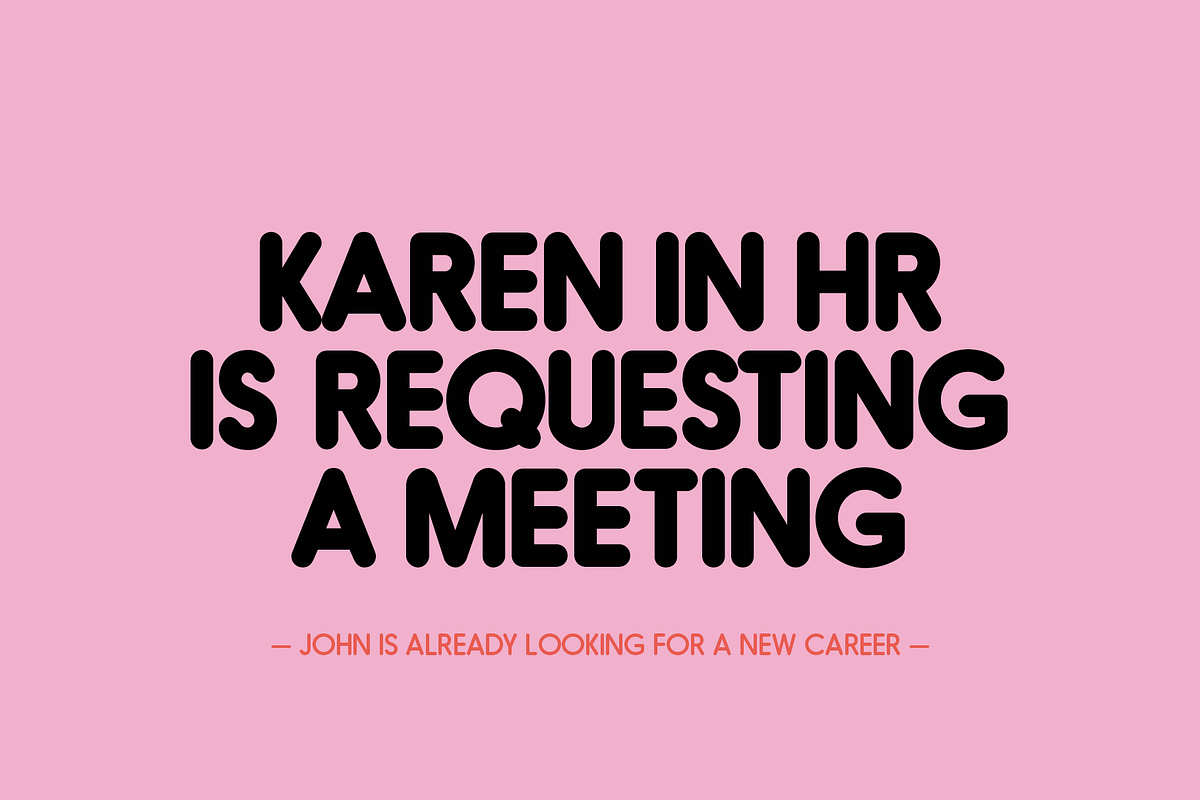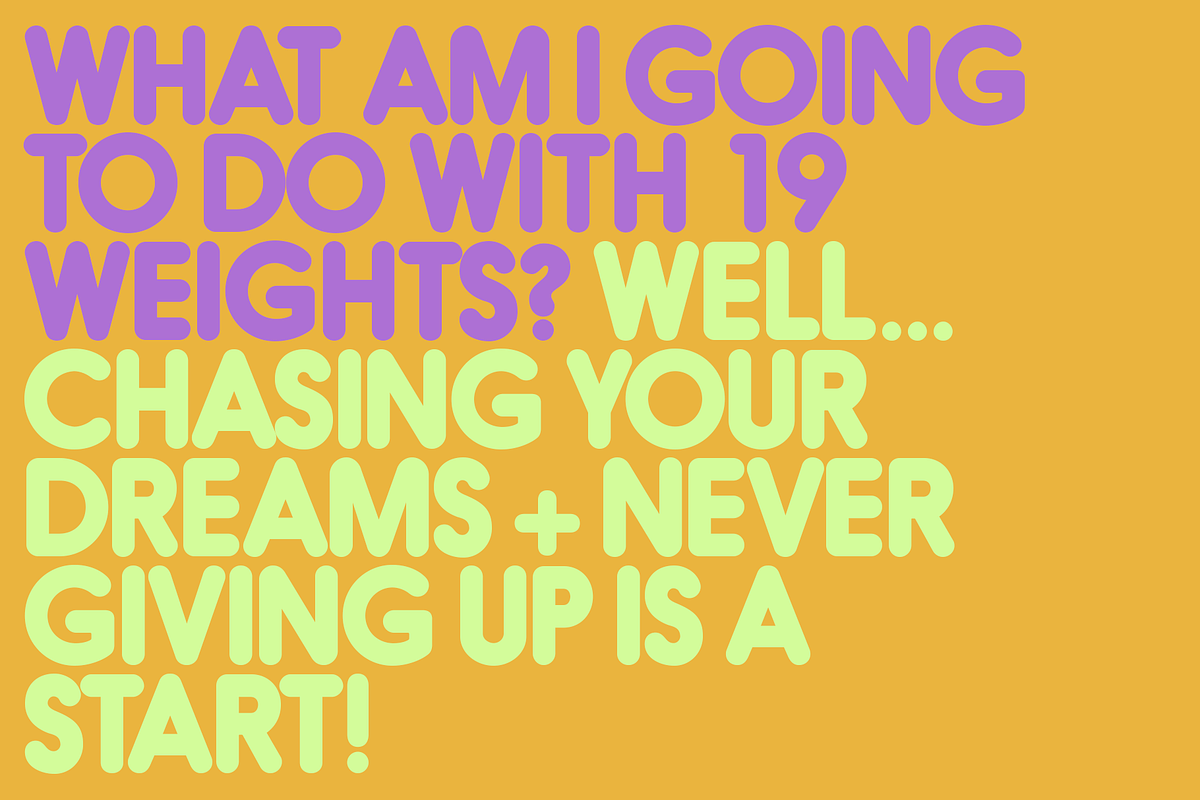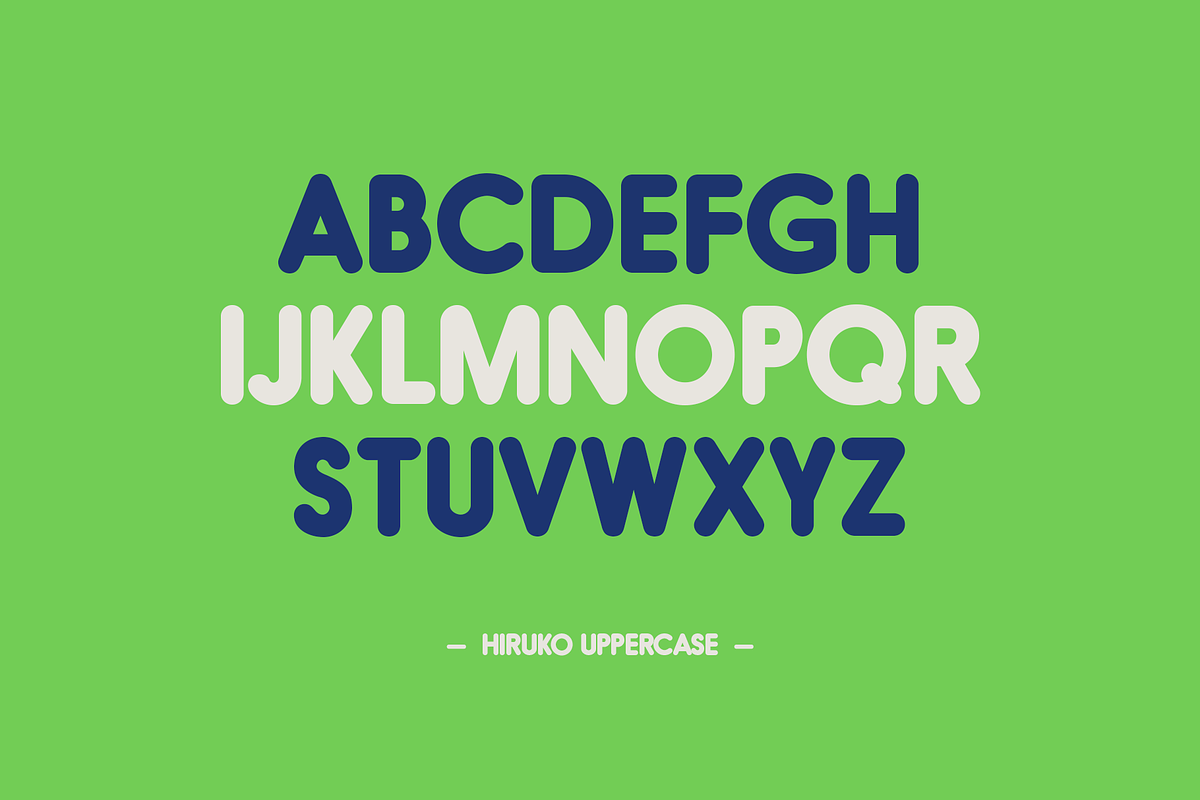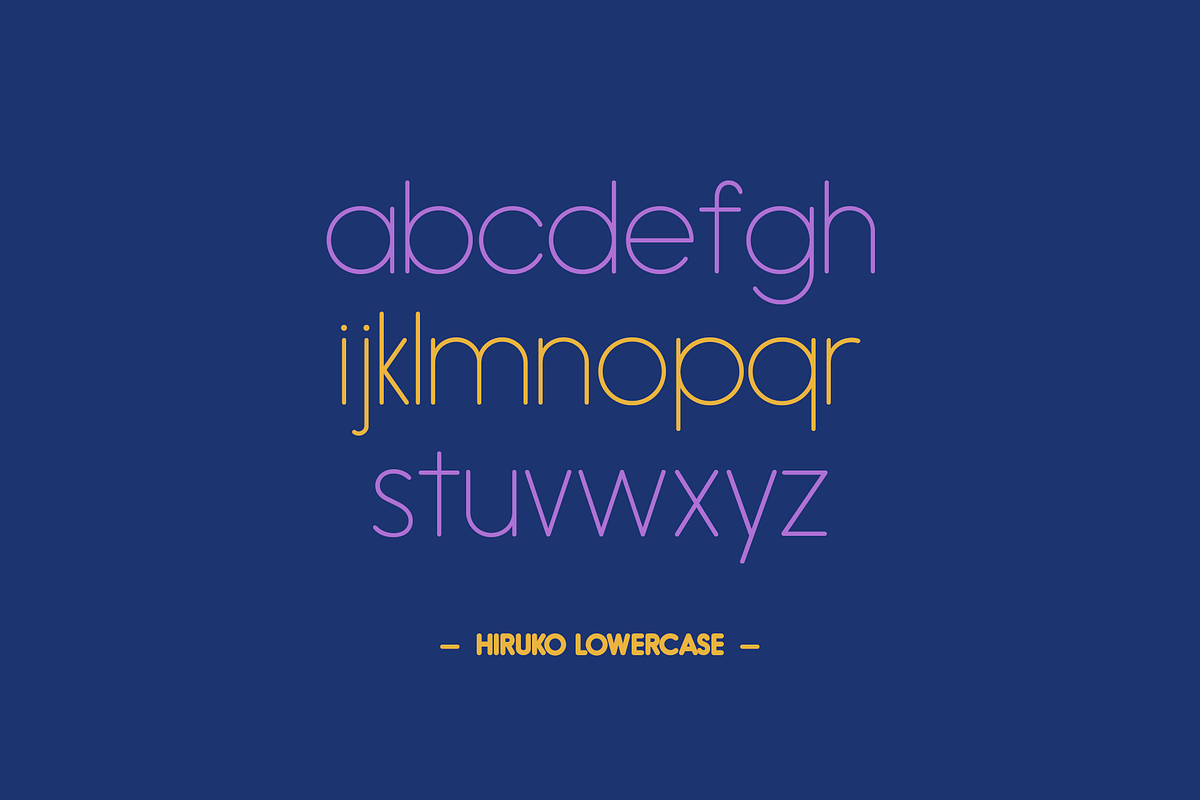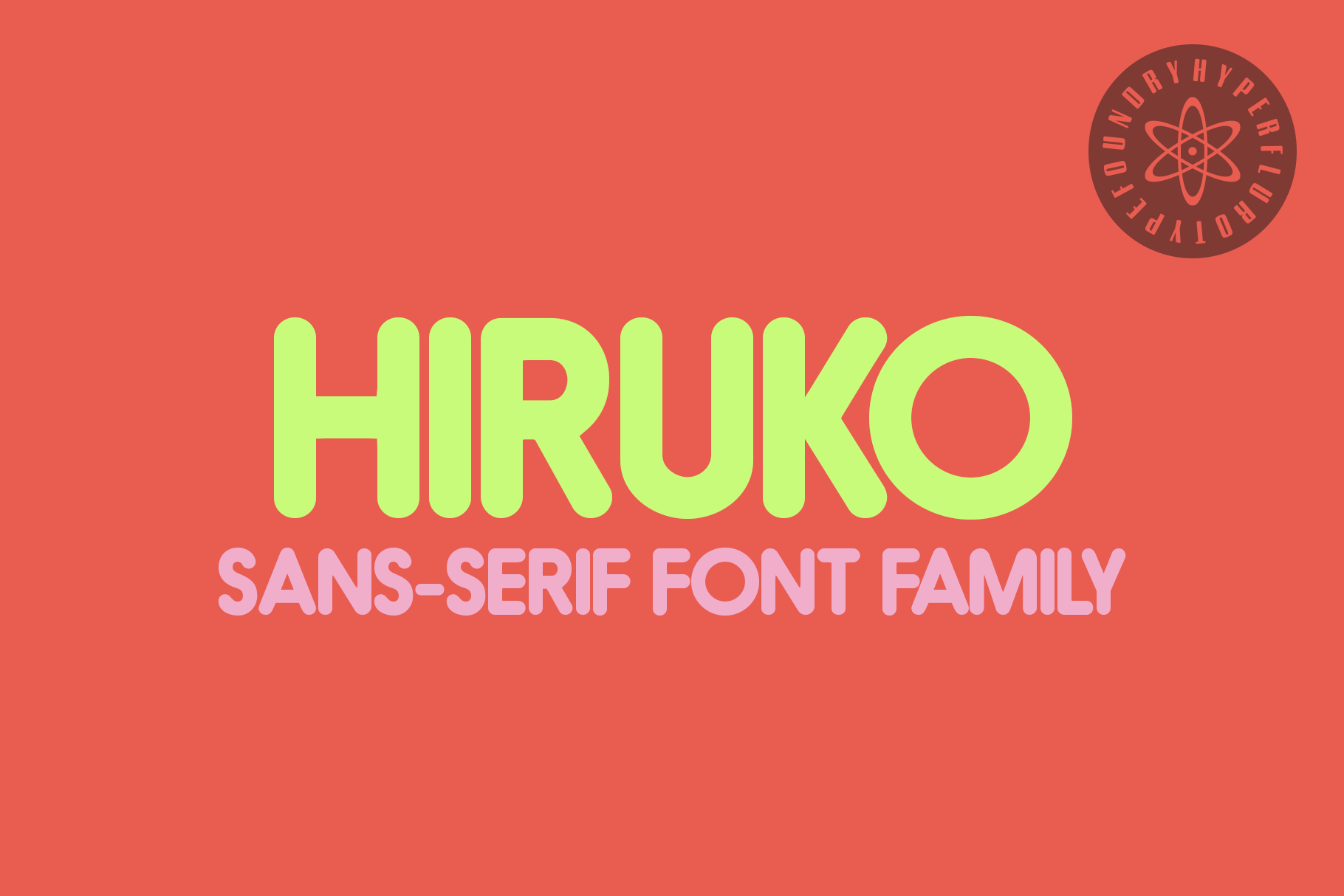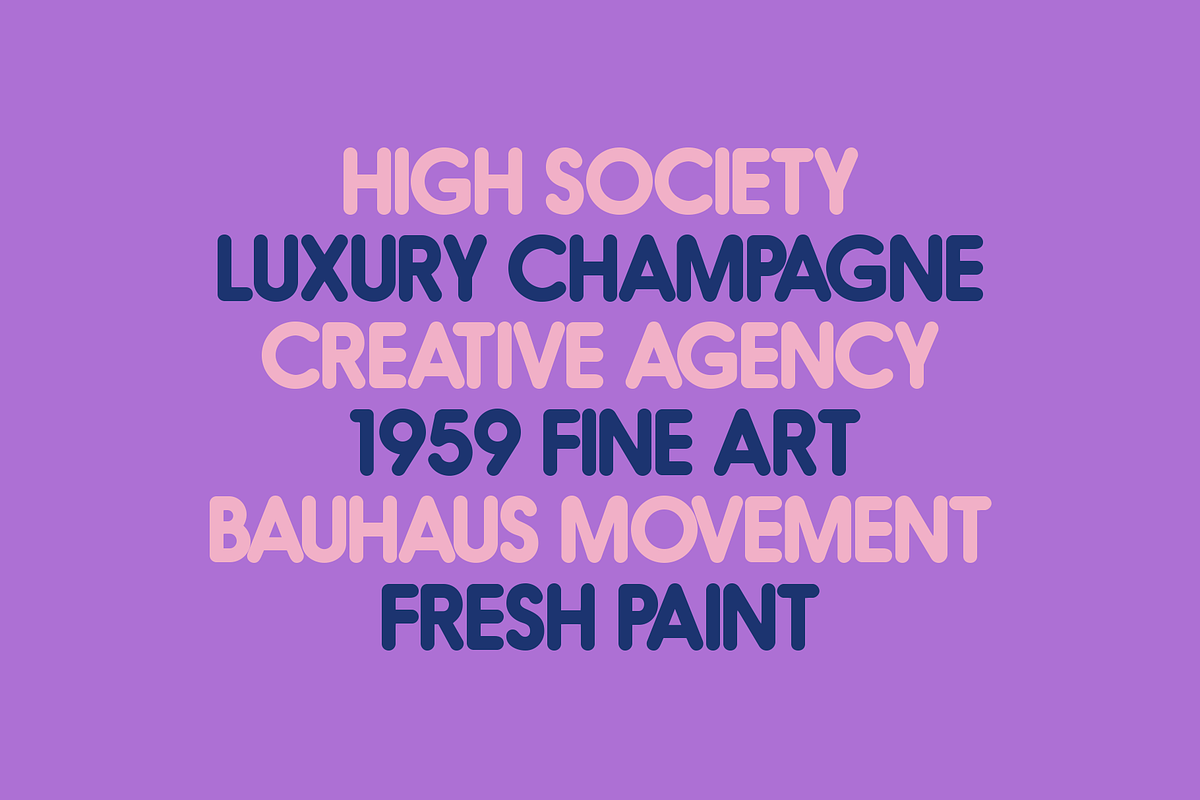
Hiruko Family 15 Round Text Fonts
Hiruko - Versatile Modern Sans Serif Font Family
Hiruko is a clean, modern sans serif font designed to deliver clarity and style in every project. With 15 unique styles, including extra-light, bold, black, italic, and outline variations, Hiruko offers endless versatility for designers. Inspired by both Swiss typography and Japanese minimalism, this typeface embraces the "less is more" philosophy, blending precision with simplicity.
Perfect for branding, editorial design, website headers, posters, and logo creation, Hiruko's smooth and functional design ensures maximum readability across print and digital platforms. Its extensive multilingual support makes it an ideal choice for global projects.
Whether you need a lightweight, elegant look or a bold, impactful statement, Hiruko adapts effortlessly to your creative needs. For an even more comprehensive option, explore the enhanced Hiruko Pro family.